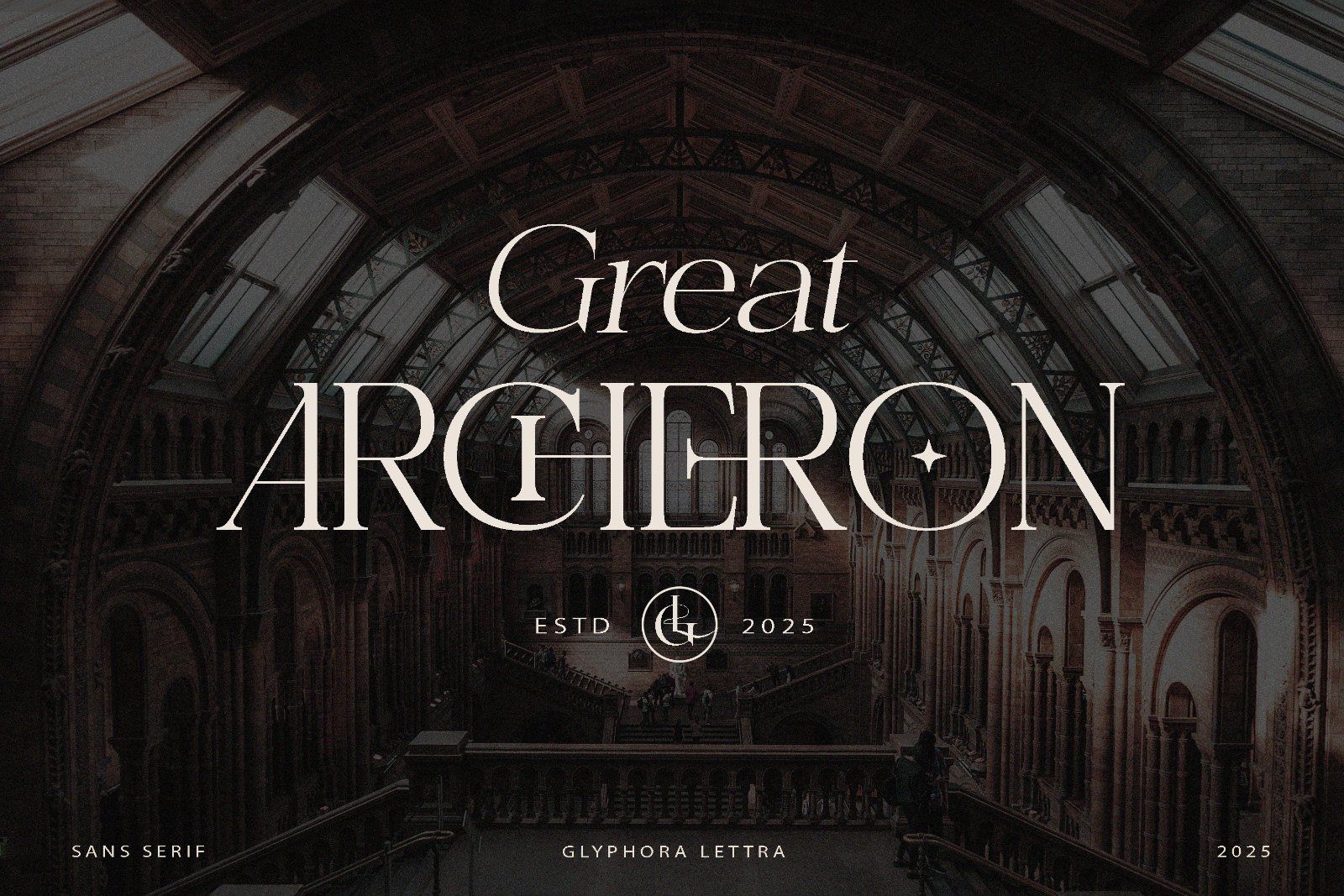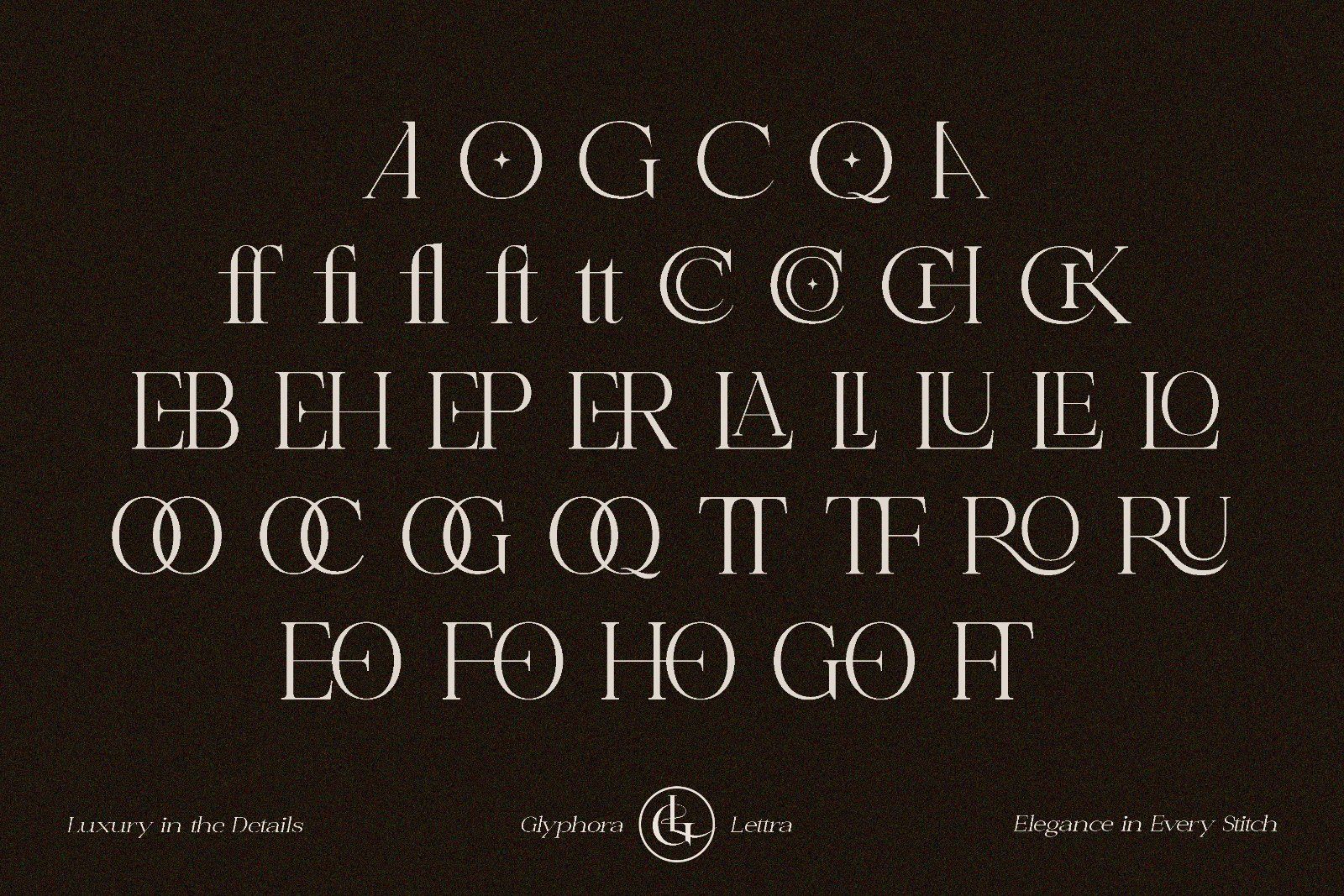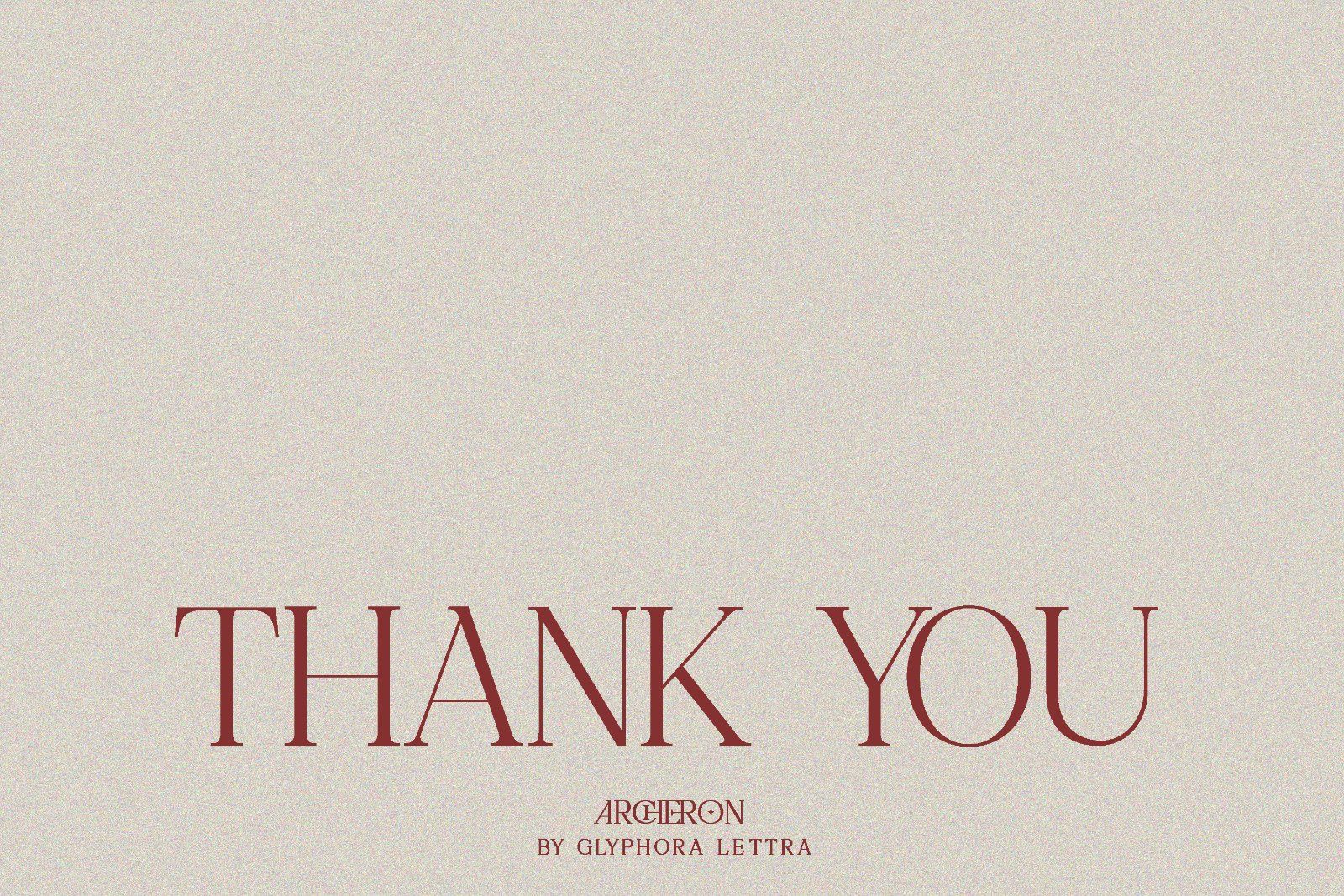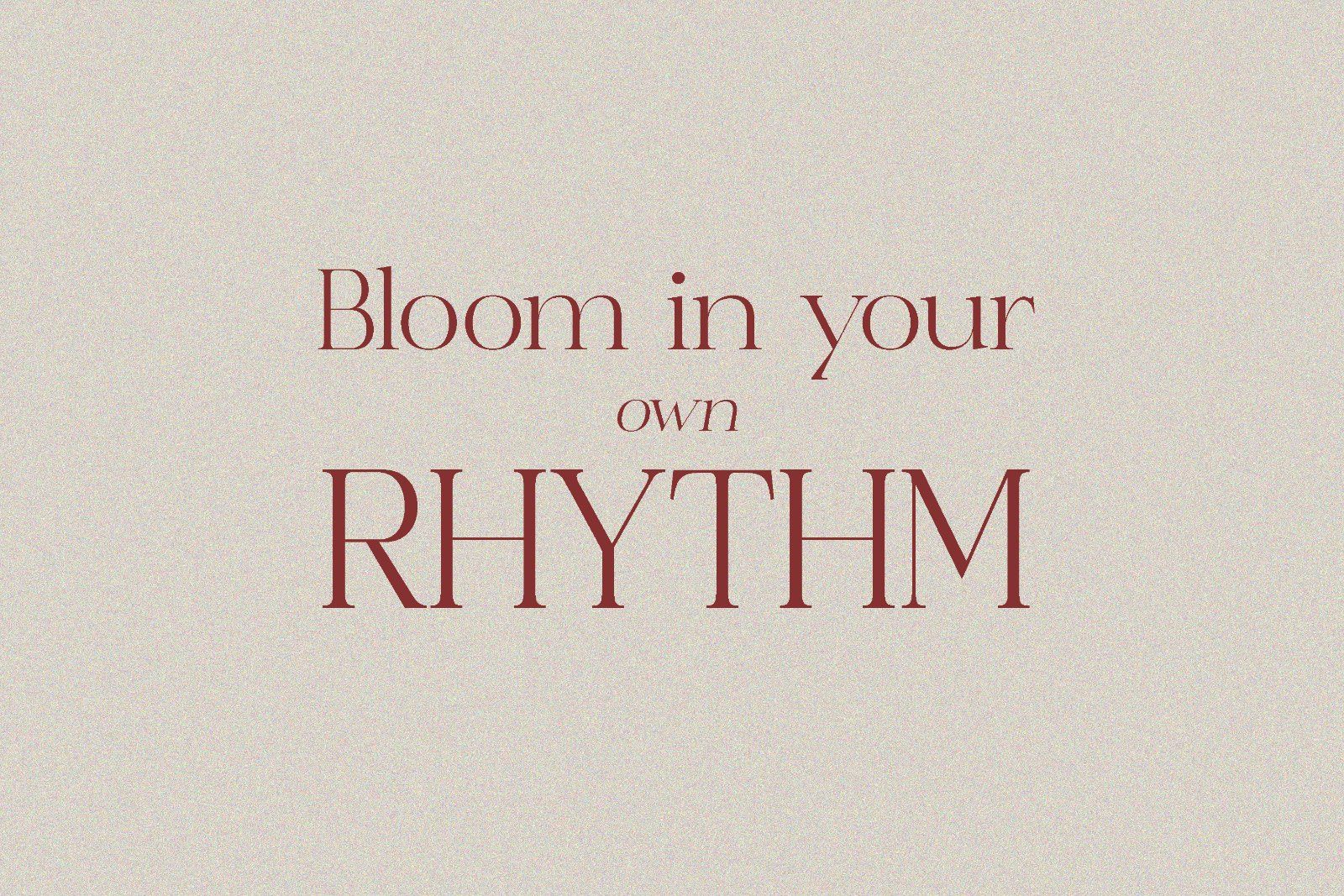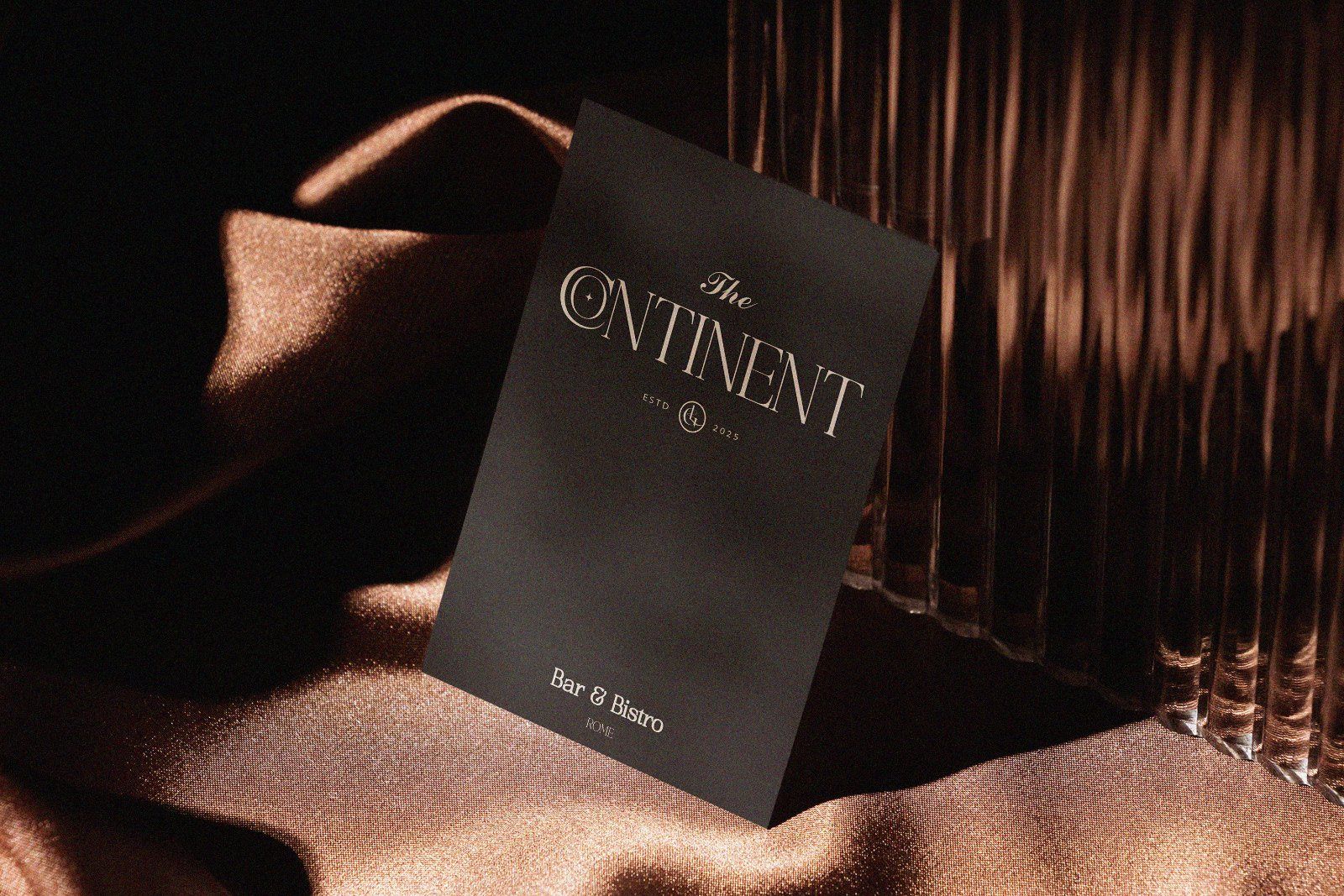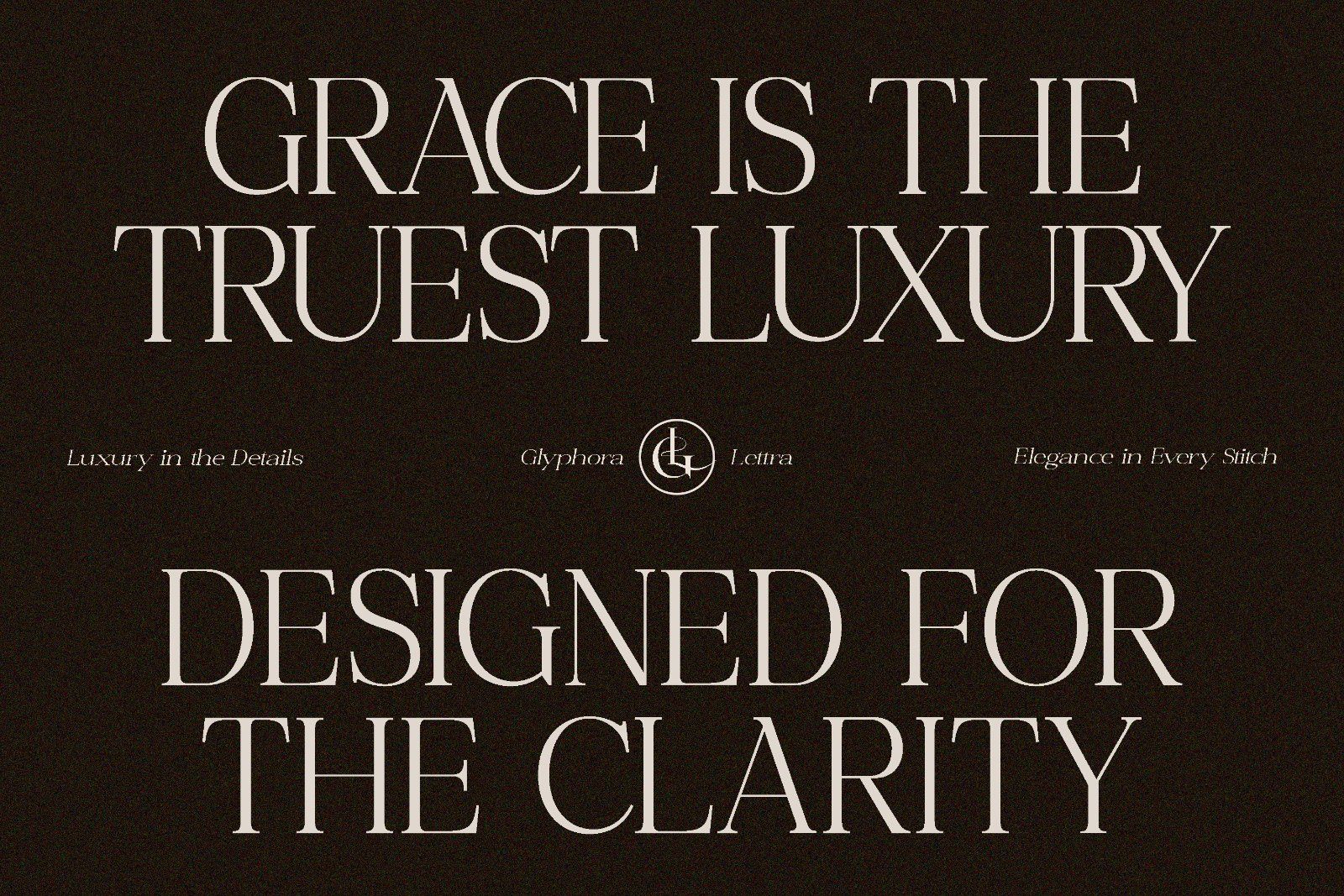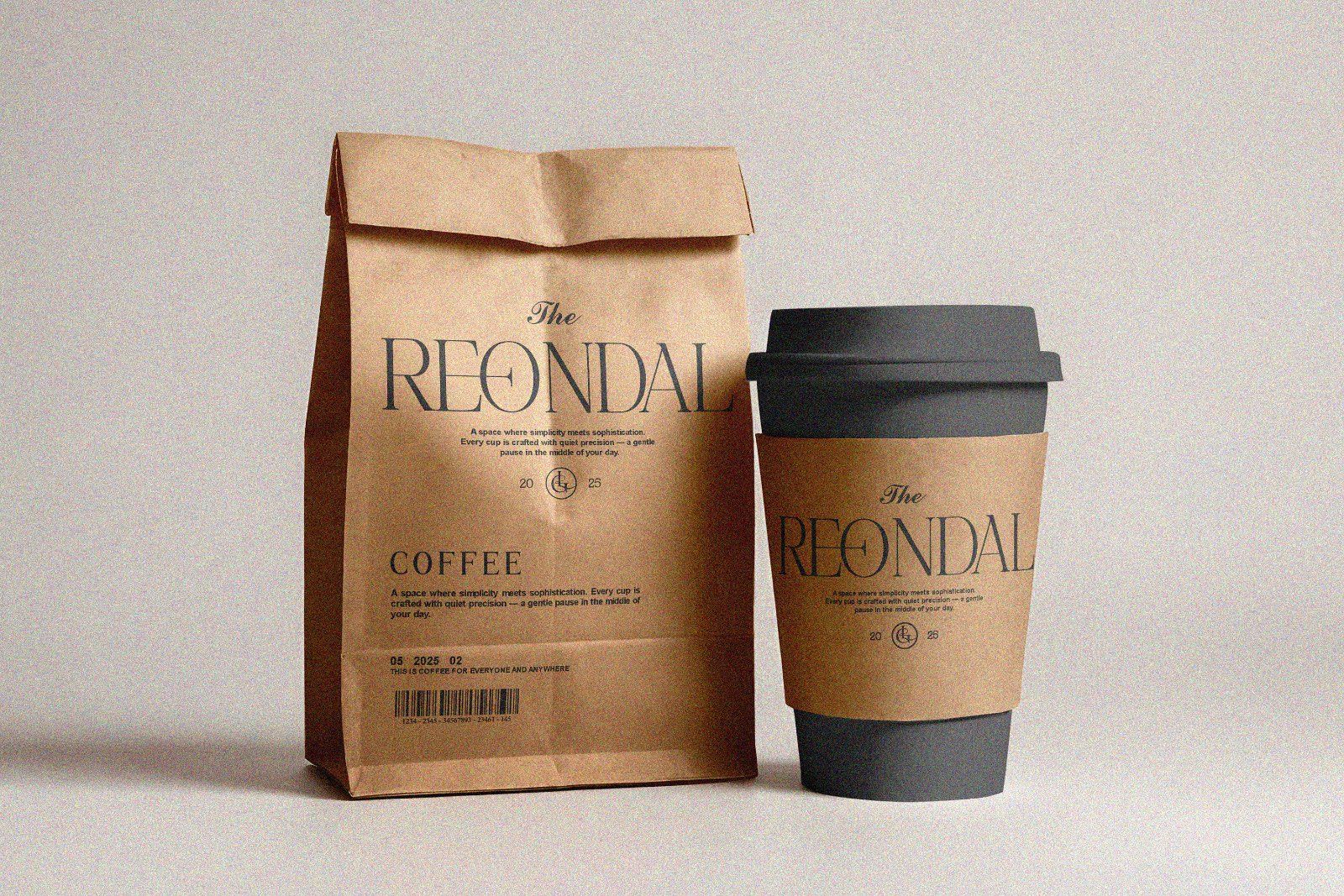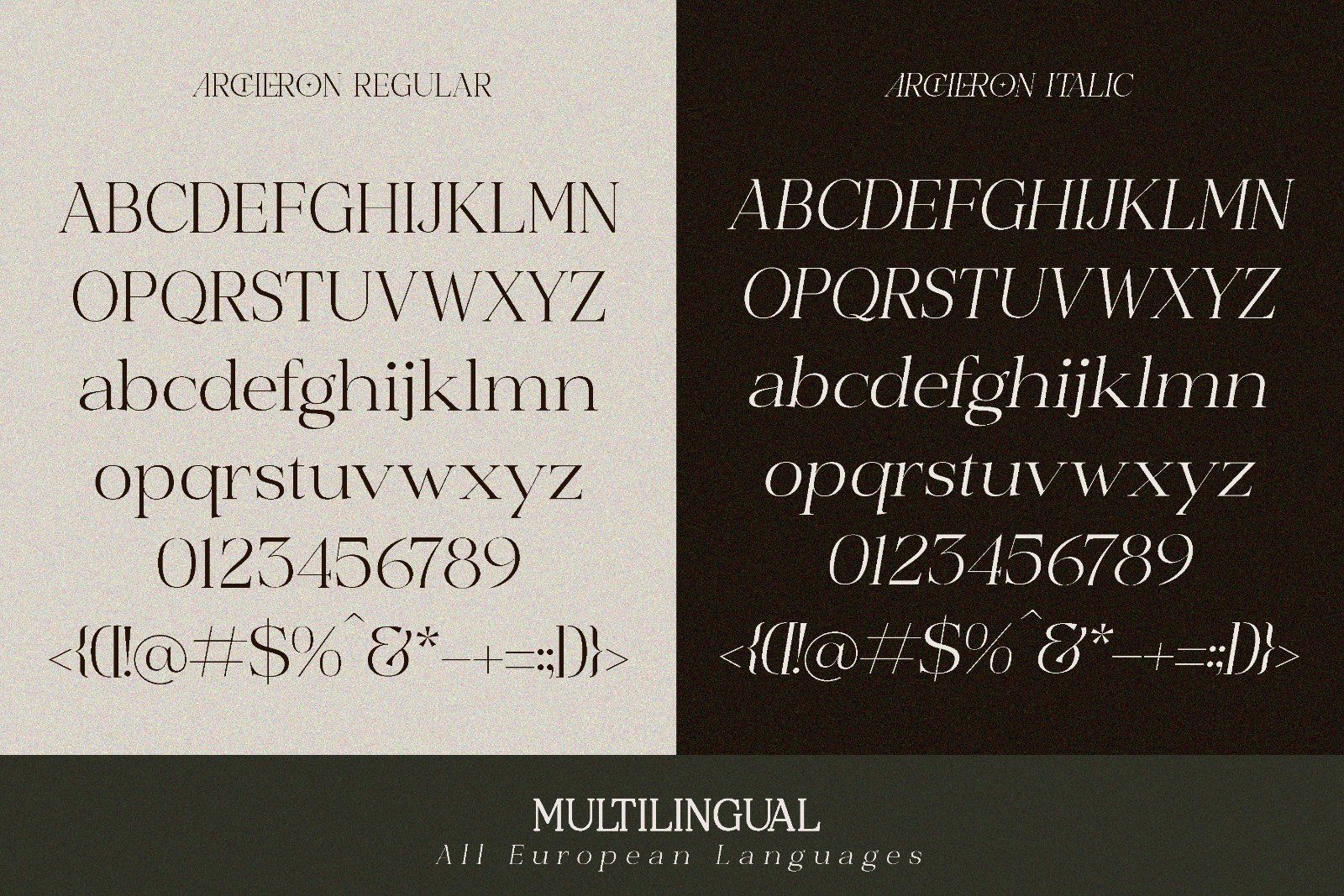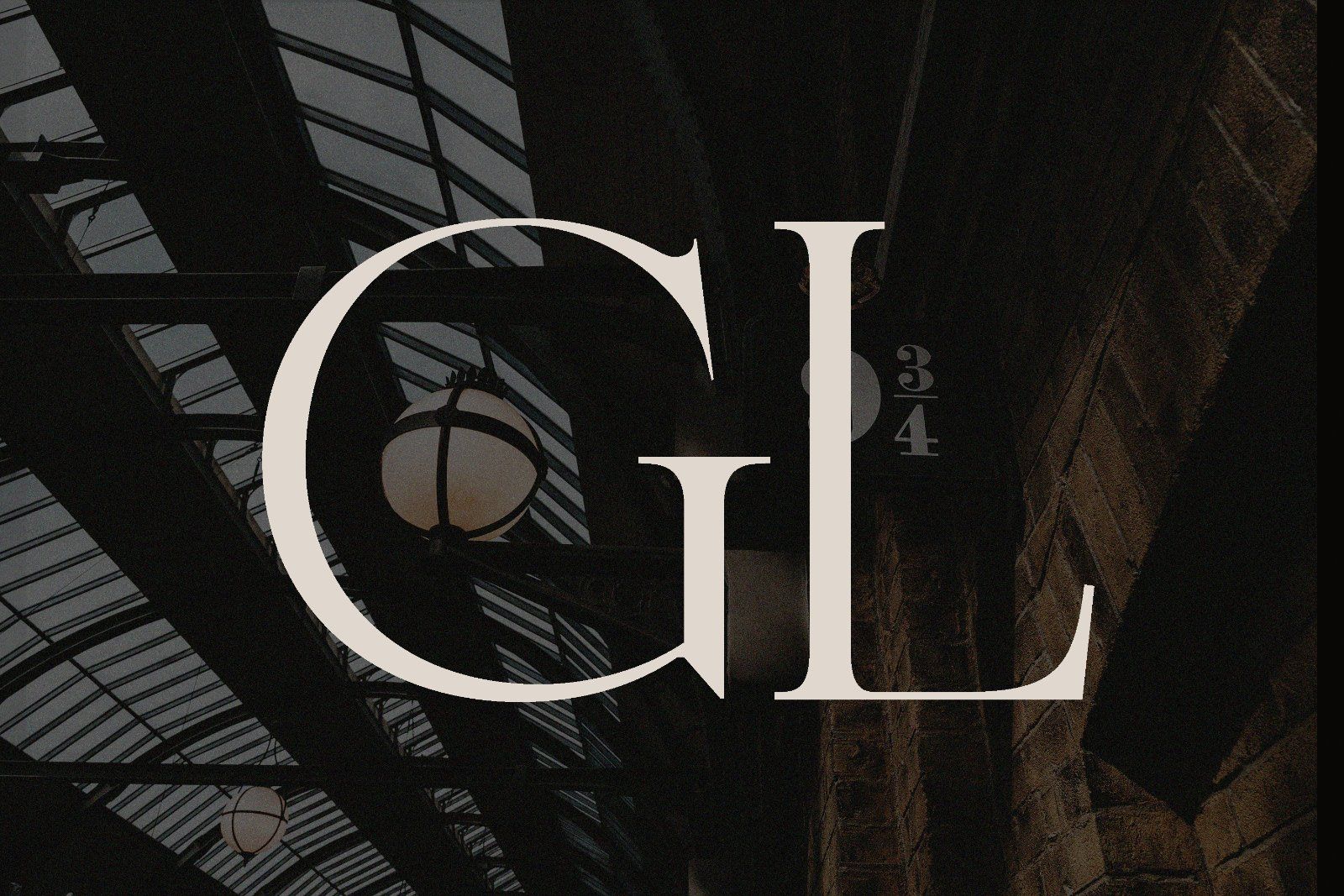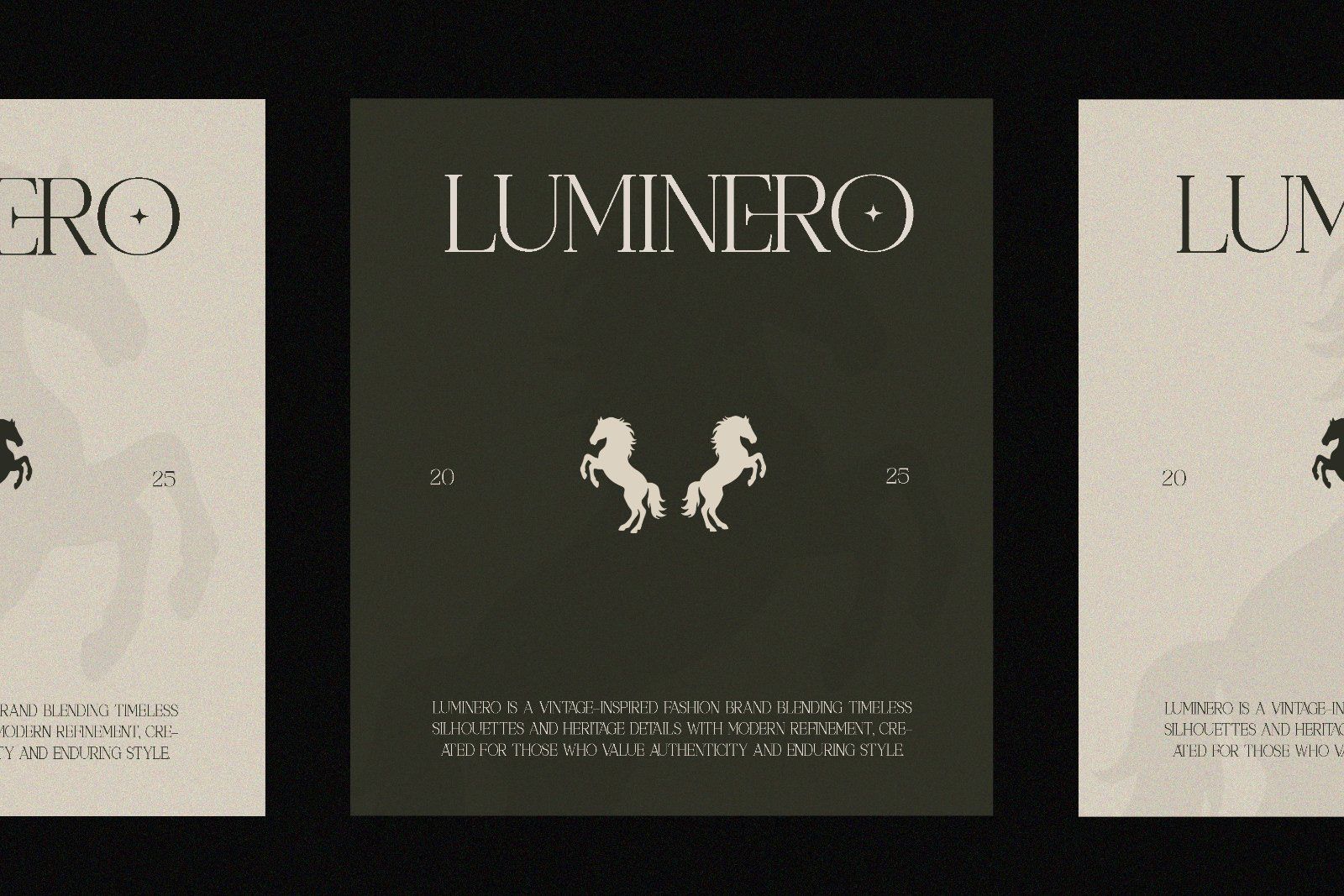
Great Archeon - Elegant Sans Serif Font
Great Archeon is an elegant display serif font inspired by classical architecture and timeless design. Featuring refined letterforms, high contrast strokes, and distinctive details, it delivers a luxurious and sophisticated character. Perfect for branding, logos, editorial layouts, fashion, beauty, and premium creative projects where a bold yet graceful visual presence is desired.
• Uppercase & lowercase letters
Perfect For:
• Luxury brand identity
• Editorial masthead
• Book cover
• Museum or gallery branding
• High-end fashion campaign
• Film title card or series opener